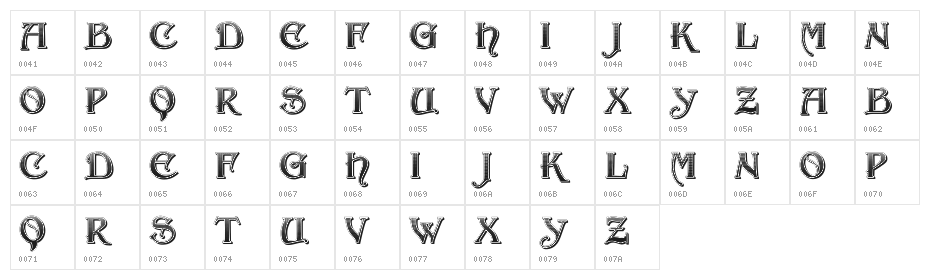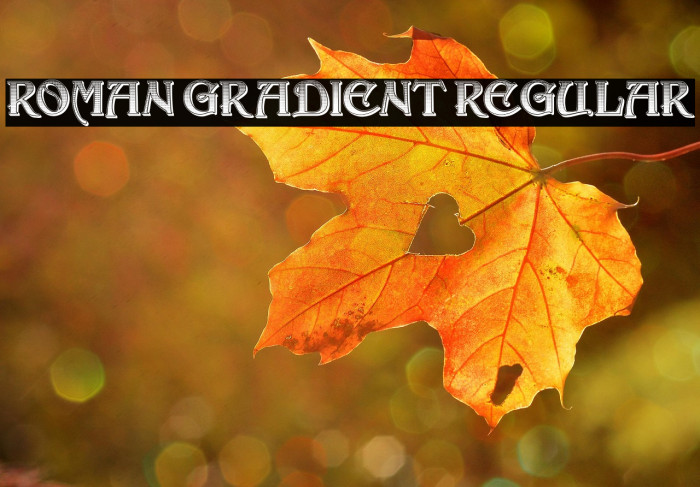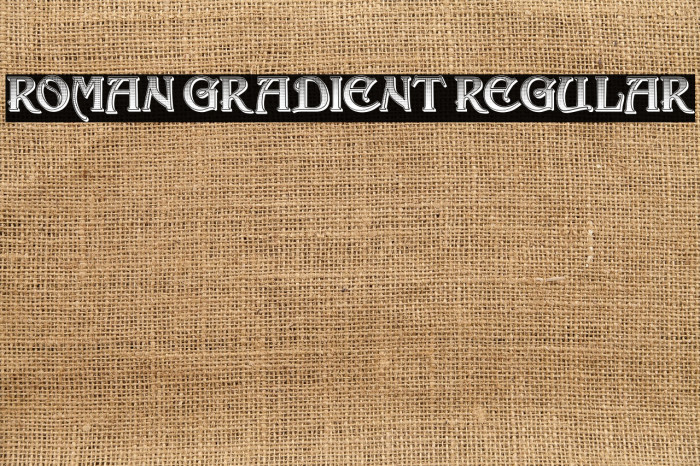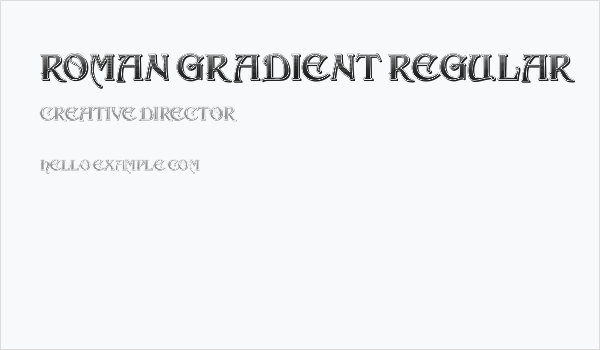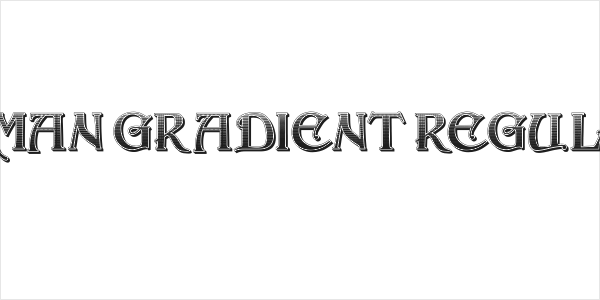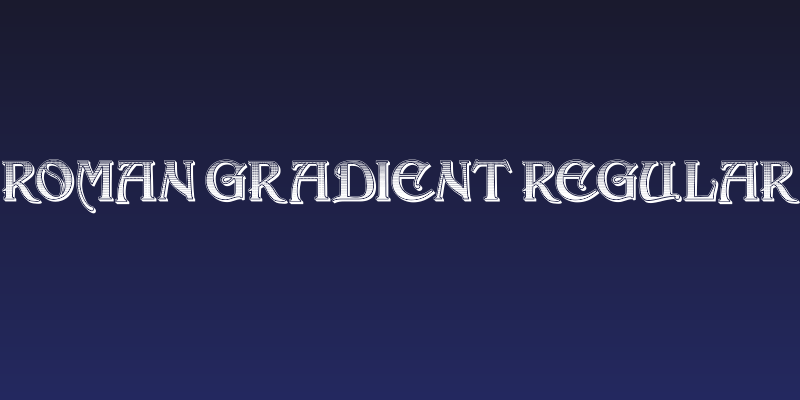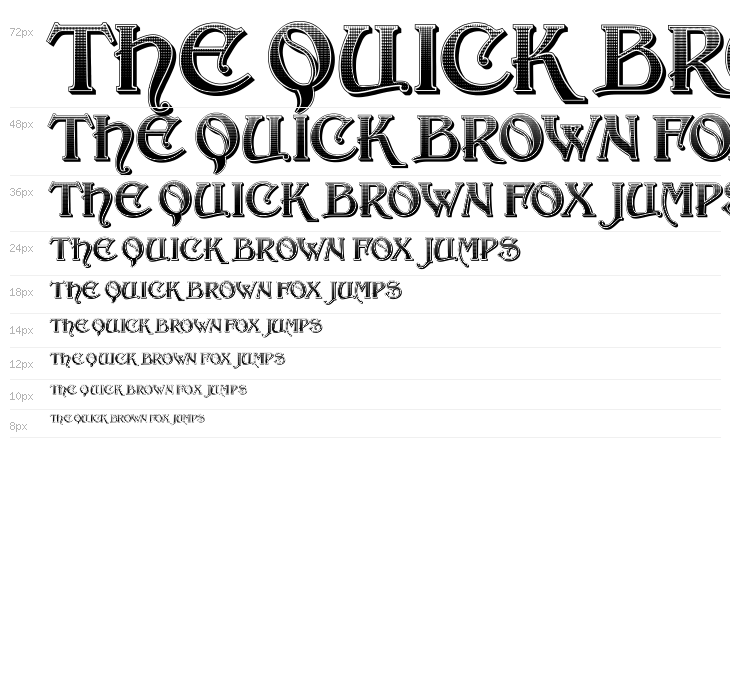
Roman Gradient Regular Font
Roman Gradient Regular Description
This font features a bold and decorative style with a distinct gradient effect that adds depth and dimension to each character. The uppercase letters are designed with intricate detailing, giving them a classic yet modern appearance. The strokes are thick, with a high contrast between the main lines and the decorative elements, creating a striking visual impact. The font's unique gradient pattern enhances its ornamental quality, making it suitable for eye-catching designs. The overall style is reminiscent of traditional Roman lettering, yet it incorporates contemporary elements that make it versatile for various design projects.
| Proposed Projects | Ideal for use in posters, logos, branding, and any project requiring a strong visual impact. |